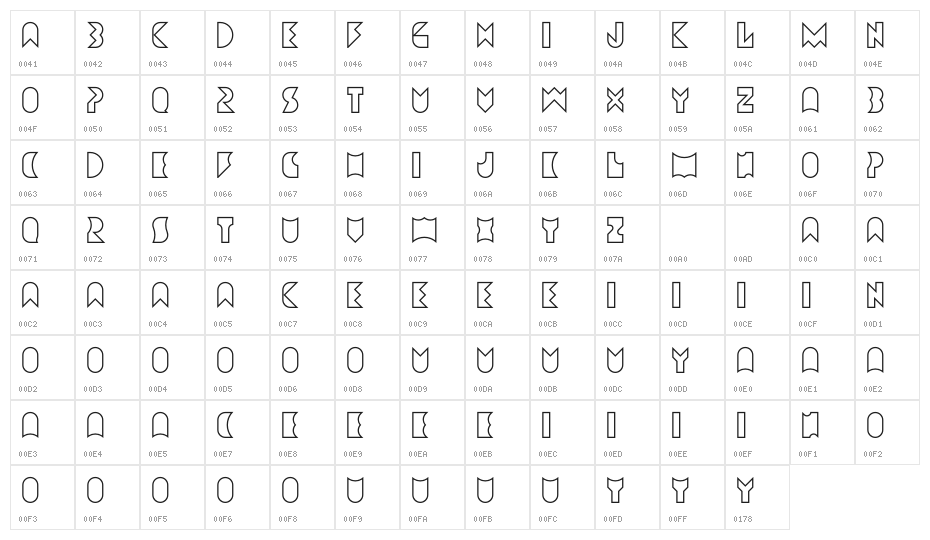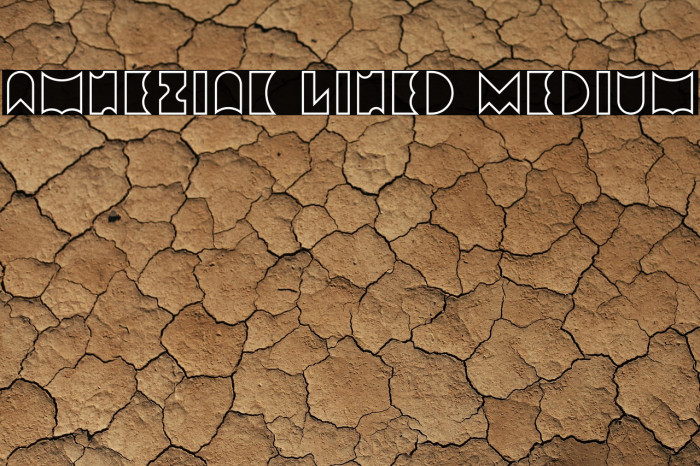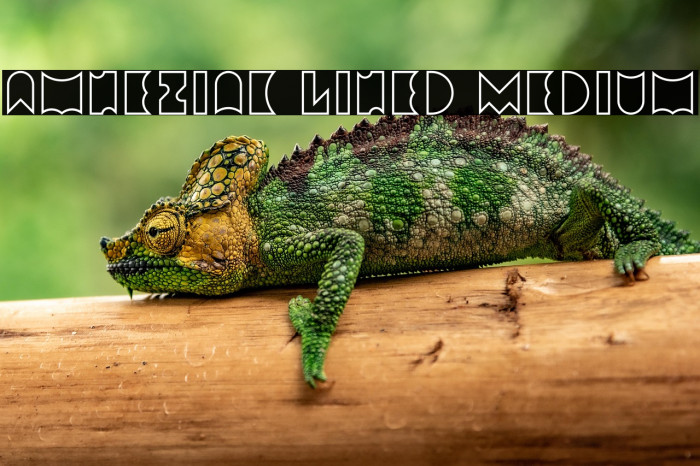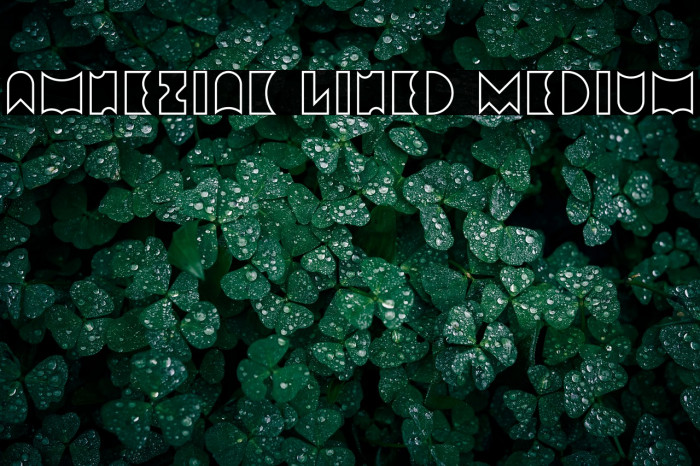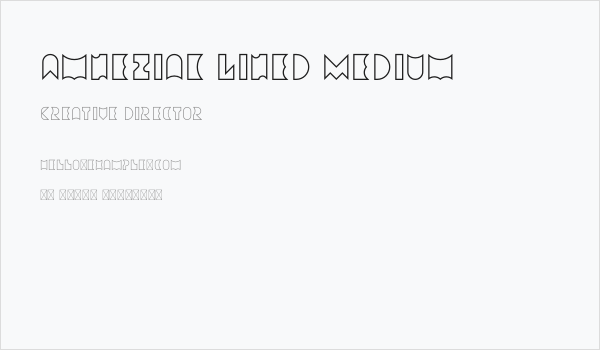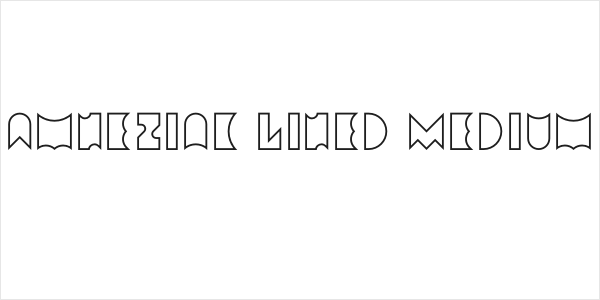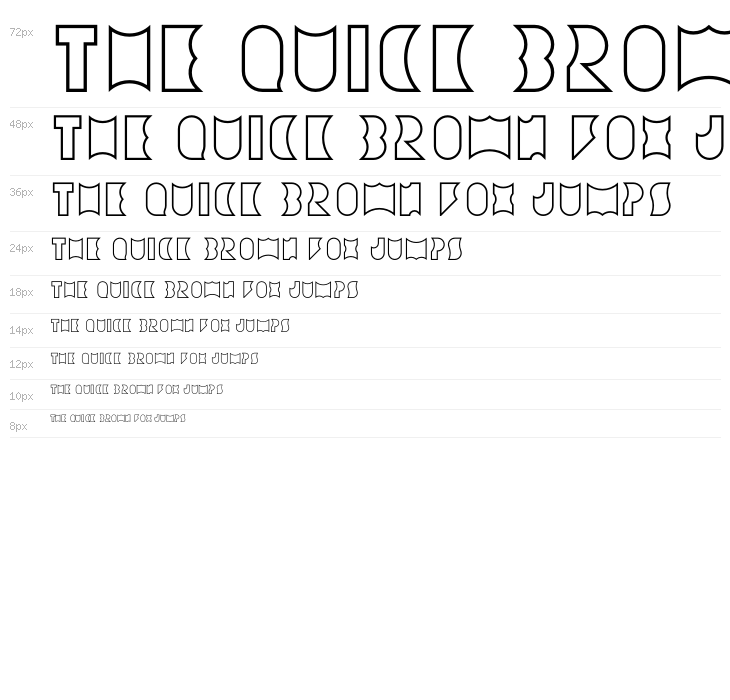
Amneziak Lined Medium Font
Amneziak Lined Medium Description
This font features a bold, geometric design with sharp angles and distinct lines. Each character is crafted with a unique combination of straight and diagonal lines, creating a striking and modern appearance. The uppercase and lowercase letters maintain a consistent style, with the uppercase letters being particularly bold and eye-catching. The numbers and special characters follow the same geometric pattern, ensuring uniformity across the font. The overall design is reminiscent of futuristic or sci-fi themes, making it ideal for projects that require a modern and edgy look.
| Proposed Projects | Ideal for sci-fi themed posters, modern branding, video game titles, and futuristic designs. |